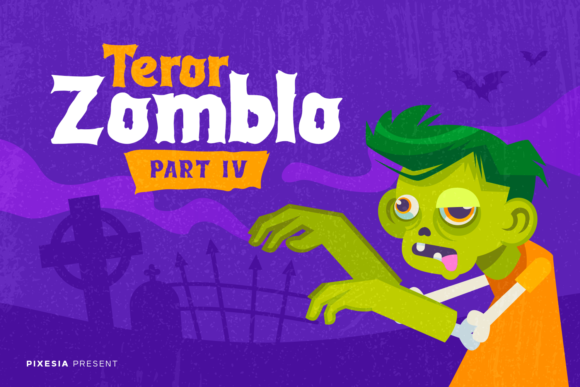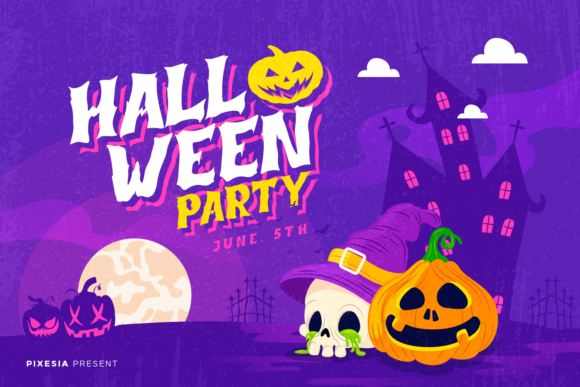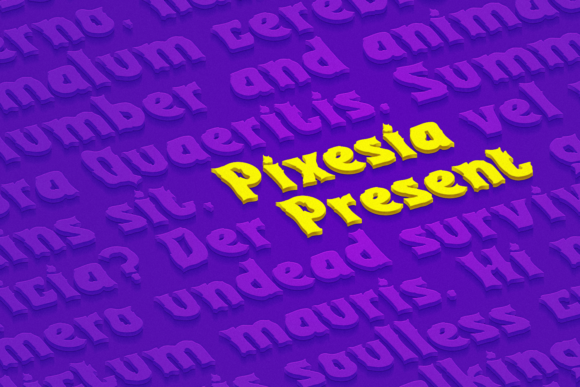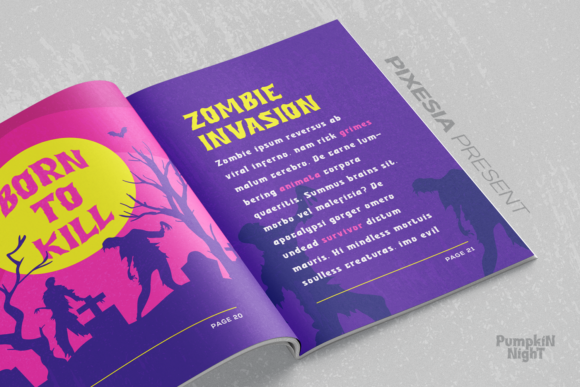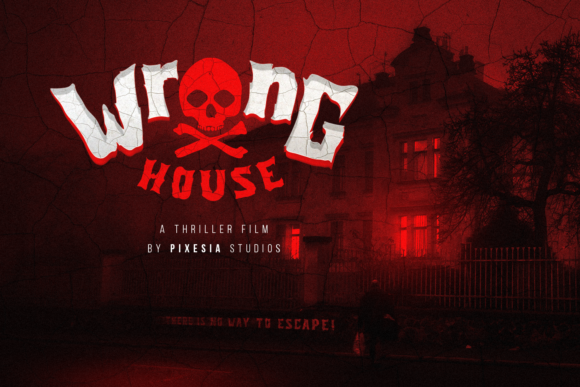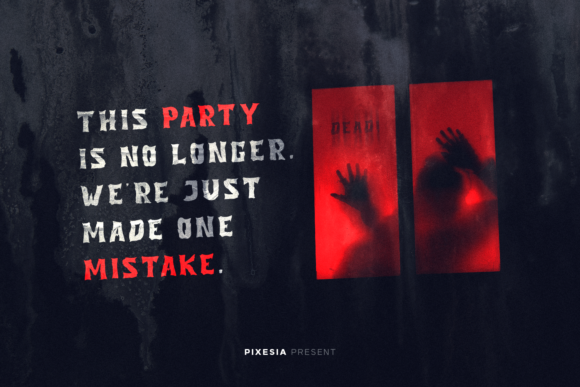
Introduction to Pumpkin Night Font Font
Fonts play a crucial role in design, and the Pumpkin Night Font font is a typeface that brings both character and versatility to any project. Whether you’re working on a branding project, a website, or a print design, the Pumpkin Night Font font offers a unique style that can elevate your work.
Pumpkin Night is a cool, thick lettered display font.
This font is imposing and features uniquely shaped letters, and as a result, it will easily match a wide range of creations that require a distinct touch .
Key Features of Pumpkin Night Font Font
Why Choose Pumpkin Night Font Font?
The Pumpkin Night Font font is more than just a typeface – it’s a design tool that helps you communicate your message with style and clarity. Its unique character set and versatile design make it suitable for a wide range of applications, from elegant invitations to bold headlines.
With its carefully crafted letterforms and balanced proportions, the Pumpkin Night Font font ensures readability and visual appeal across all mediums.
What makes Pumpkin Night Font font special?
The Pumpkin Night Font font stands out with its unique design, exceptional readability, and versatility across various design applications.